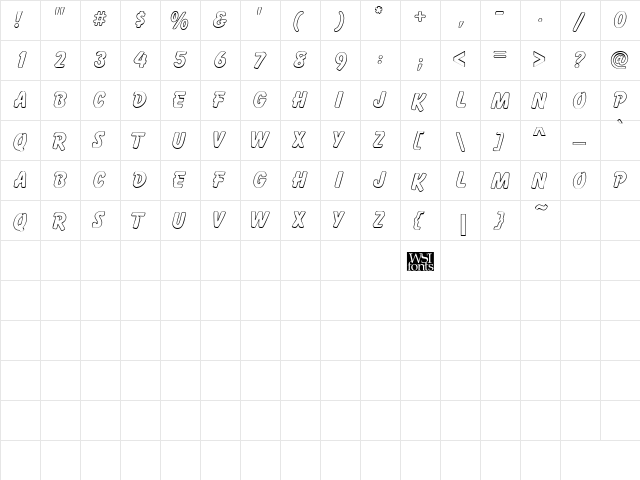
GremlinOutline Regular
Design Context for GremlinOutline Typeface
GremlinOutline is built around its visual character rather than neutral utility — its distinctive forms are designed to make an impression at display sizes.
Font Pairing: Pair with a clean neutral sans-serif for body copy to let GremlinOutline's character lead without overwhelming the composition.
Pro Tip: Use GremlinOutline exclusively at display sizes — it was designed to be seen, not read at length. Let a neutral companion handle body copy.